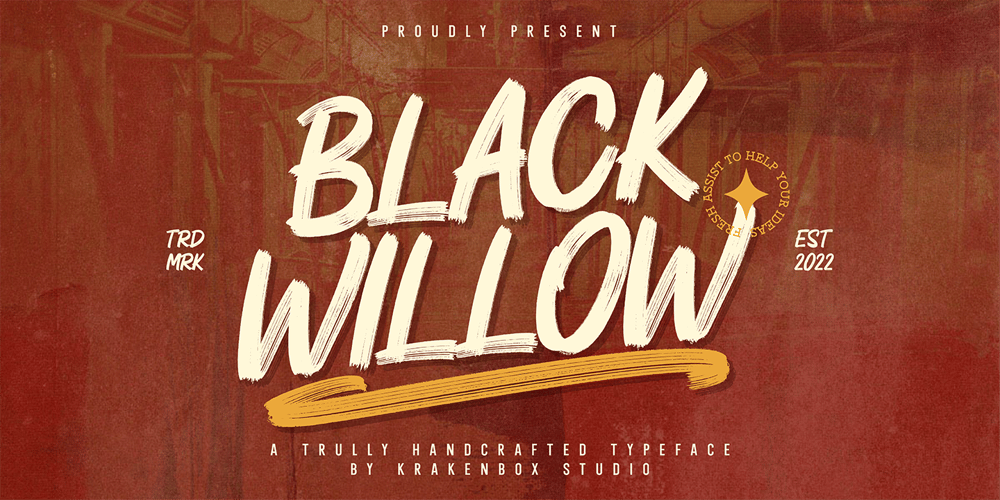
Black Willow
Black Willow font
Black Willow Font Family was designed by Yahdi Kumala and published by Krakenbox Studio. Black Willow contains 2 styles and family package options. Black Willow – is Hand Brush with rough and textured inky. Its has urban, vintage, cool styles and modern look makes it a fantastic choice for fashion, signature, album covers logos, branding, magazines, social media posts, advertisement, and many more. Use this display font to add that special cool touch to any design idea you can think of!